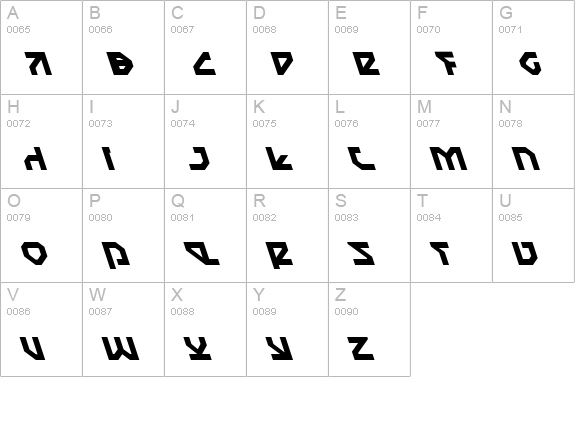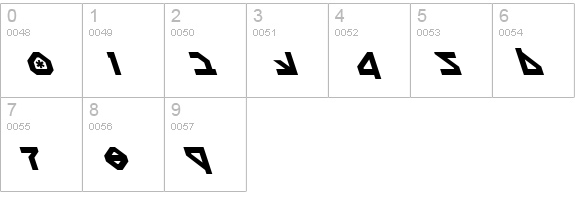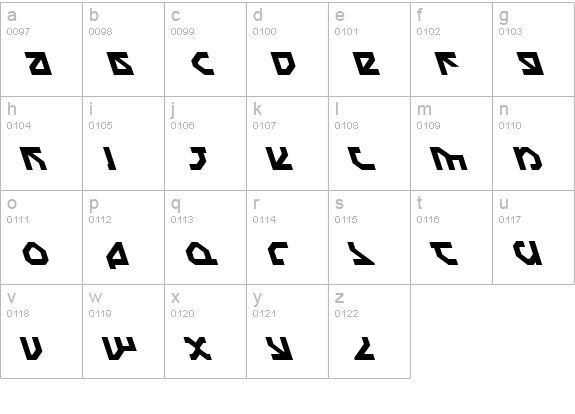
Nostromo Leftalic font is a sleek and modern typeface that exudes sophistication and elegance. Its stylish slanted design adds a touch of flair to any project, making it perfect for branding, advertising, and graphic design. The elegant curves and sharp angles of Nostromo Leftalic create a sense of movement and dynamism, while still maintaining a high level of readability. Whether used for headlines, logos, or body text, this font is sure to make a bold statement. Best of all, Nostromo Leftalic is available for free download at FontsMarket.com. This means you can access this beautiful font without any cost, making it a fantastic choice for designers on a budget or anyone looking to enhance their projects with a high-quality typeface. Don't miss out on the opportunity to elevate your designs with Nostromo Leftalic - download it today and let your creativity shine!